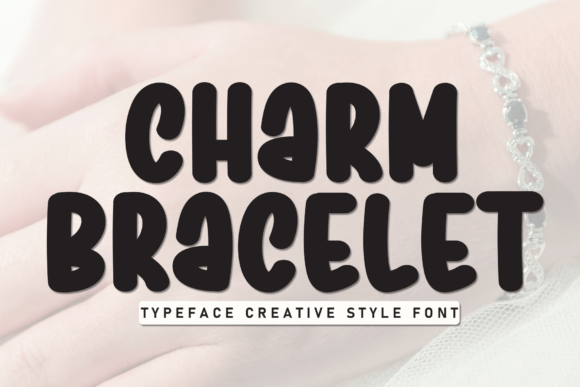
Unlock the Charm of Your Designs with the Perfect Font
Have you ever been scrolling through a trendy boutique’s website, and a beautifully crafted headline stops you in your tracks? The words dance across the screen, drawing you in with their effortless charm. That’s the magic of typography, and today we’re going to talk about a font that can bring that same charm to your designs: the Charm Bracelet Font.
This neat and casual display font is the perfect blend of clarity and laid-back vibes. Its clean lines and friendly letterforms make it ideal for headlines, posters, packaging, and branding that aims to feel modern yet relaxed. With a balanced structure and playful energy, the Charm Bracelet Font brings personality to any project without overwhelming the message.
As a designer, you know that the right font can make all the difference in capturing your audience’s attention. The Charm Bracelet Font is a valuable addition to any designer’s toolkit, offering a unique combination of style and readability that’s sure to elevate your projects.
Key Features of Charm Bracelet Font
- Font Family: Charm Bracelet Font is a unique, hand-drawn font designed to resemble a charm bracelet. It comes in a single font family with various weights and styles.
- Character Set: The font includes a wide range of characters, including uppercase and lowercase letters, numbers, punctuation marks, and special characters.
- Unique Characteristics: The font’s hand-drawn design and charm-like elements give it a whimsical and playful feel, making it perfect for creative projects, such as invitations, greeting cards, and social media graphics.
Designer Review: Charm Bracelet Font
Overall, I found Charm Bracelet Font to be a cute and playful typeface that would work well for designs requiring a whimsical touch. ✨ I particularly enjoyed its rounded edges and childlike charm, which can add a friendly vibe to any project.
The font comes in a range of weights and styles, allowing for flexibility in usage. ✨ It’s also relatively easy to read, making it suitable for body text and headings.
One of the main limitations of Charm Bracelet Font is its lack of versatility in more formal or professional contexts. ⚠️ It may come across as too playful or immature for certain projects, which could be a drawback for some designers.
Additionally, I found the font’s lines to be slightly inconsistent in some weights, which can affect its overall appearance. ⚠️ However, this issue is relatively minor and may not be noticeable in most designs.
Recommendation
- Use Charm Bracelet Font for playful, child-friendly projects or designs requiring a whimsical touch.
- Be cautious when using the font in more formal or professional contexts, as it may come across as too playful.
To get the most out of the Charm Bracelet Font, try combining it with other whimsical elements, such as illustrations or graphics. Experiment with different text colors and styles to create a unique look.
The Charm Bracelet Font is perfect for:
- Wedding invitations and stationery Alternative Font Options for Designers